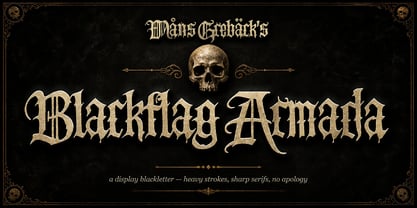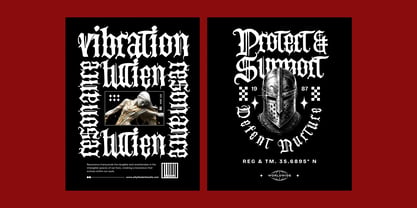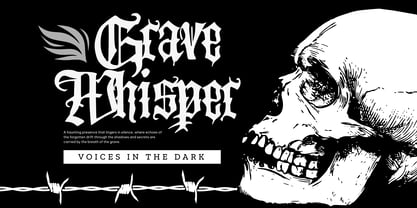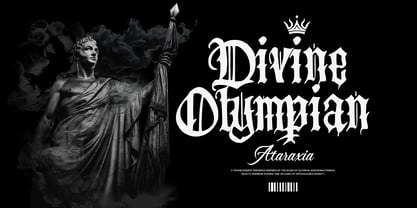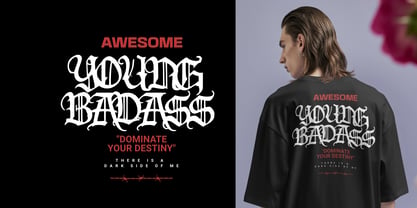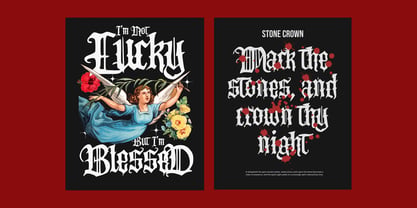
Blackflag Armada
by Mans Greback
The Blackflag Armada Font Family was designed by Måns Grebäck and published by Mans Greback. Blackflag Armada contains 4 styles and family package options. More about this family
Blackflag Armada is a tall blackletter display face with sharp ink-trap terminals and a heavy upright stroke.
The capitals stack like banners — vertical, narrow, dense — and the lowercase keeps the same weight without softening the rhythm. Diagonals are clipped, joints are blunt, and the negatives between strokes are kept minimum so a word reads as one solid block rather than a row of letters. The result is a face that wants to be set big, in a single colour, with weight to spare.
It is the kind of lettering you can picture inked across the back of a denim jacket at the front of a pit, or across the cover of a record where the band's name has to read from the other side of the room.
The font is built with advanced functionality and guaranteed top-notch quality, containing stylistic and contextual alternates, ligatures and more automatic and manual features; all to give you full control and customizability.